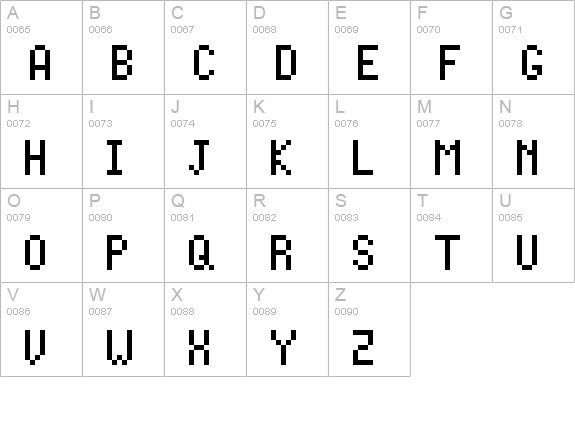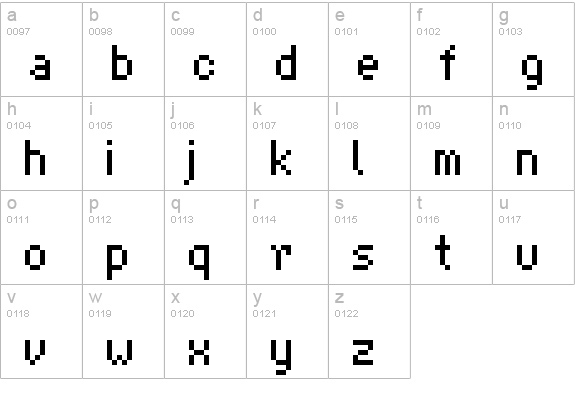
Introducing fontline6_1, a beautifully crafted font that exudes elegance and sophistication. This versatile typeface is perfect for a wide range of design projects, from branding to editorial design. Its sleek lines and modern aesthetic make it a standout choice for any creative endeavor. The best part? fontline6_1 is completely free to download at FontsMarket.com, allowing you to elevate your designs without breaking the bank. Embrace the beauty and versatility of fontline6_1 today and take your projects to the next level.